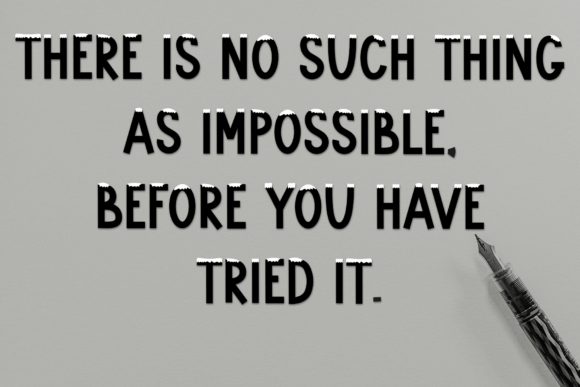
Winter Blue Font: A Casual and Creative Typeface for Your Designs
Are you looking for a font that can add a touch of warmth and friendliness to your designs? Look no further than the Winter Blue font. This casual and creative typeface is perfect for personal projects, invitations, and social media graphics. In this article, we’ll take a closer look at the Winter Blue font, its features, and how you can use it to elevate your designs.
What is Winter Blue Font?
Winter Blue is a casual and creative font that exudes warmth and friendliness. Its round, playful strokes create a relaxed and approachable feel, making it perfect for designs that require a personal touch. The font’s charming, hand-drawn aesthetic adds a fun and unique touch to any design, making it stand out from more traditional typefaces.
Key Features of Winter Blue Font
- Casual and Creative: Winter Blue font has a unique and creative design that is perfect for personal projects and social media graphics.
- Warm and Friendly: The font’s round, playful strokes create a warm and friendly feel that is sure to engage your audience.
- Hand-Drawn Aesthetic: The font’s charming, hand-drawn aesthetic adds a fun and unique touch to any design.
Use Cases for Winter Blue Font
Winter Blue font is perfect for a variety of design projects, including:
- Personal Projects: Use Winter Blue font to add a personal touch to your personal projects, such as photo albums, scrapbooking, and more.
- Invitations: The font’s casual and creative design makes it perfect for invitations, such as birthday parties, baby showers, and more.
- Social Media Graphics: Use Winter Blue font to create engaging social media graphics, such as Facebook posts, Instagram stories, and more.
- Branding: The font’s unique and creative design makes it perfect for branding projects, such as logos, business cards, and more.
Benefits of Using Winter Blue Font
Using Winter Blue font in your designs offers a range of benefits, including:
- Unique Design: The font’s unique and creative design will help your designs stand out from the crowd.
- Easy to Read: The font’s round, playful strokes make it easy to read, even at small sizes.
- Versatile: Winter Blue font is perfect for a variety of design projects, from personal projects to branding and social media graphics.
Tips and Tricks for Using Winter Blue Font
Here are some tips and tricks for using Winter Blue font in your designs:
- Use it with Other Fonts: Use Winter Blue font with other fonts to create a unique and creative design.
- Experiment with Colors: Experiment with different colors to find the perfect combination for your design.
- Pay Attention to Size: Pay attention to the size of the font, as it can affect the overall look and feel of your design.
- Use it in Combination with Images: Use Winter Blue font in combination with images to create a visually appealing design.
Winter Blue font is a casual and creative typeface that is perfect for personal projects, invitations, and social media graphics. Its unique and creative design, combined with its warm and friendly feel, make it a great choice for designers looking to add a personal touch to their designs. With its PUA Encoded glyphs, Winter Blue font is compatible with various application engines, making it easy to use in a variety of design applications.
- What is Winter Blue font? Winter Blue font is a casual and creative typeface that exudes warmth and friendliness.
- Is Winter Blue font easy to read? Yes, Winter Blue font is easy to read, even at small sizes, due to its round and playful strokes.